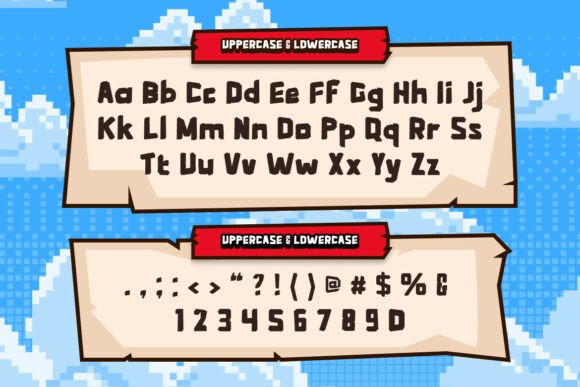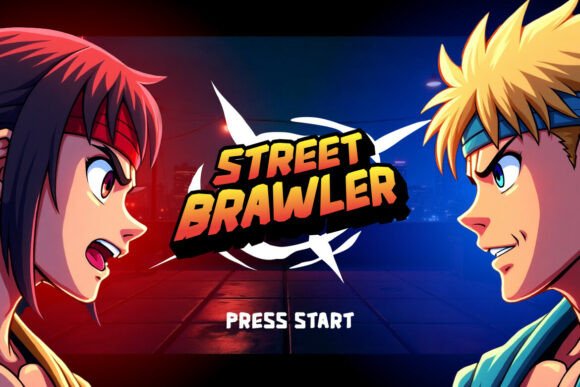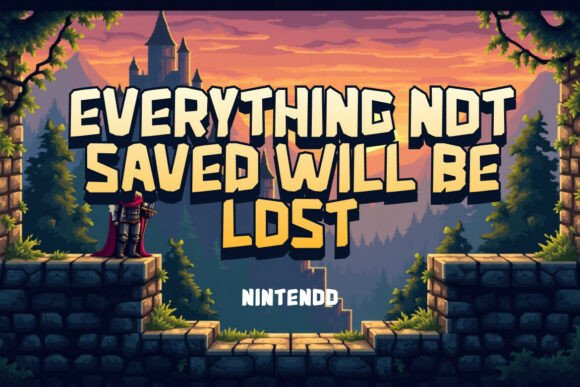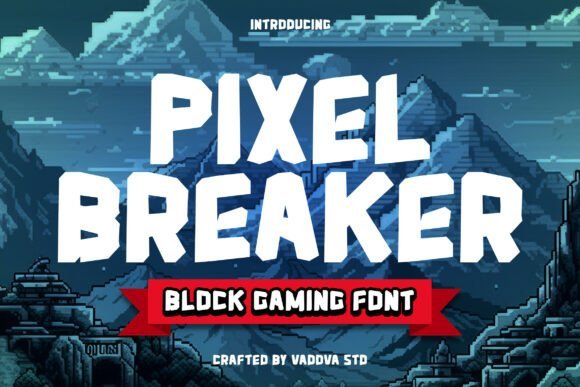
Introduction to Pixel Breaker Font
Pixel Breaker presents a bold block-style gaming font with sharp geometric construction and a strong arcade-inspired character.
The design features chunky letterforms with a pixelated influence, delivering a dynamic and energetic visual impact Provided in standard font formats, fully editable, and ready for digital and print use without additional plugins.